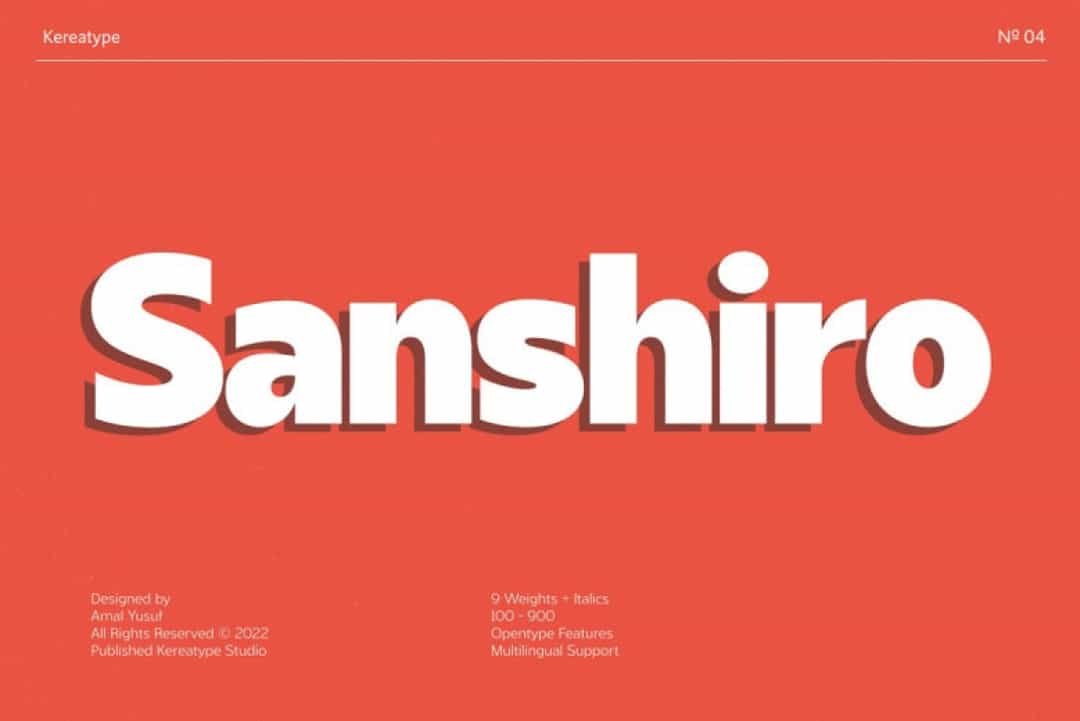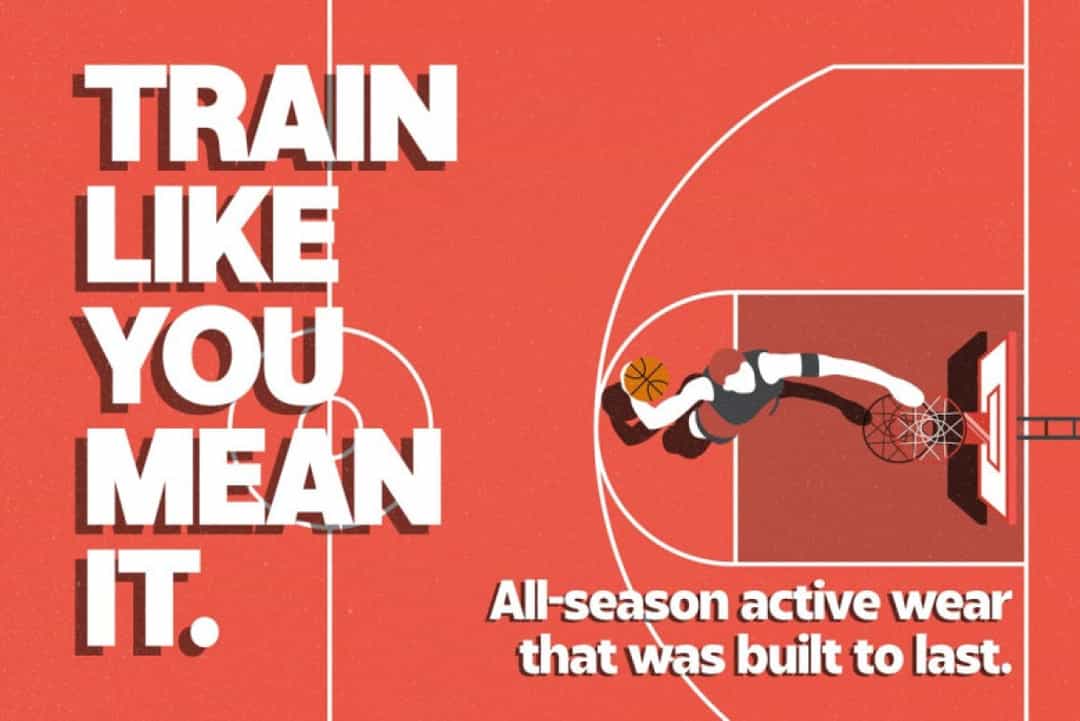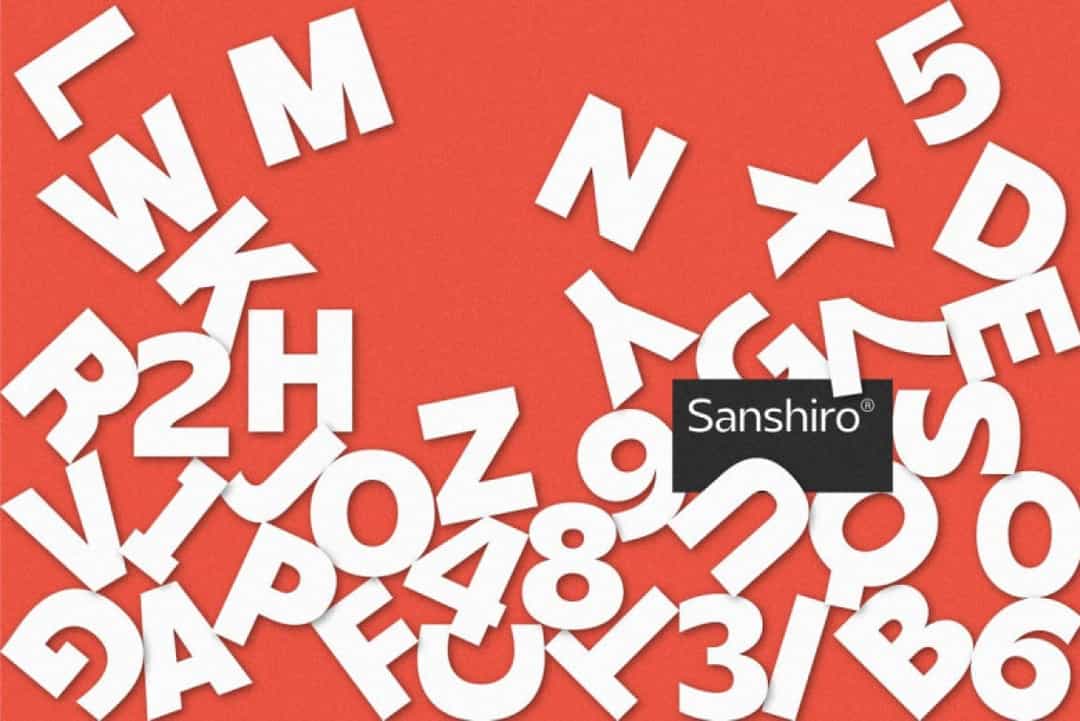
Sanshiro is an elegant geometric sans serif font family with 9 weights spanning from Thin through Black with matching italics. Normal characters have been optimized to have perfect proportions and balance, ideal for text.